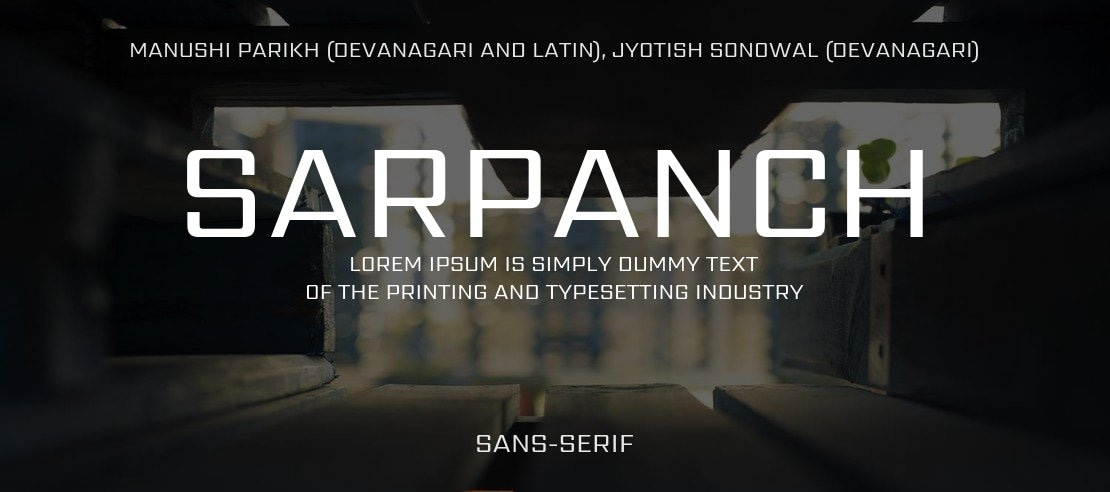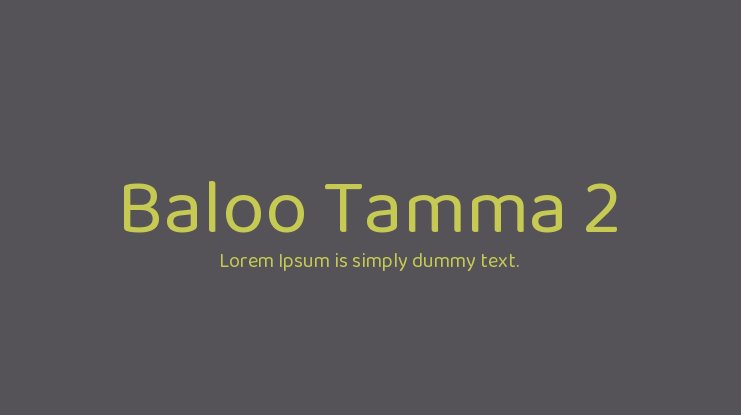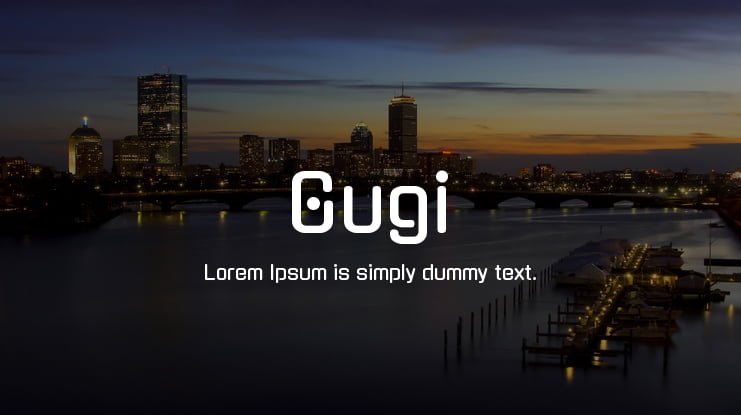
8 Best Free Google Fonts for Your Logo Design (2024)
Discover the 8 best free Google Fonts for logo design in 2024.
It is vital to select an appropriate font in order to create a unique and quality logo. It is always a challenging task for a designer or small business owner to come up with a logo that reflects a brand altogether, more so with Google Fonts where one can access thousands of high-quality free typefaces. In this guideline, we will present the 8 most reasonable free Google Fonts for logo design that will help improve your brand’s visibility.
What is Google Fonts?
Google Fonts is a free, open-source library of fonts that provides designers and developers with a wide variety of typefaces to use across websites, applications, and graphic projects like logo design.
Since it was launched in 2010, it has helped many designers find and incorporate different styles of fonts such as serif, sans serif and display. Google fonts is a great asset when developing a logo as it provides each client with different fonts for different styles of brands.
Advantages of using Google Fonts on your Logo Design
Design Your Own Logo with Free Google Fonts can enhance the visual appeal and functionality of your brand's identity. Here are some key advantages:
- Free and Commercial-Use Friendly: All fonts in the Google Fonts library are free of charge, even for commercial use. This means you can come up with professional logos without worrying about licensing costs. That's why it is more affordable for small businesses, start up companies or even a freelance designer opt to use Google fonts.
- Wide Range of Font Styles: There’s an enormous selection of type matter at Google Fonts, from sans-serifs to bold and outlandish display fonts. Whether it is a sleek modern logo or a cute artistic one, there’s always something suitable on Google Fonts.
- Easy to Download and Implement: You may download their fonts right away to be used in design applications such as Adobe Illustrator, Figma, and even Sketch, thus making your logo design process faster.
Here are 8 Best Google Fonts for Your Logo Design
For those searching for various logo design options, here are 8 of the most appropriate Google Fonts. They are free and allow for the creation of a professional and distinct brand.
1. Work Sans
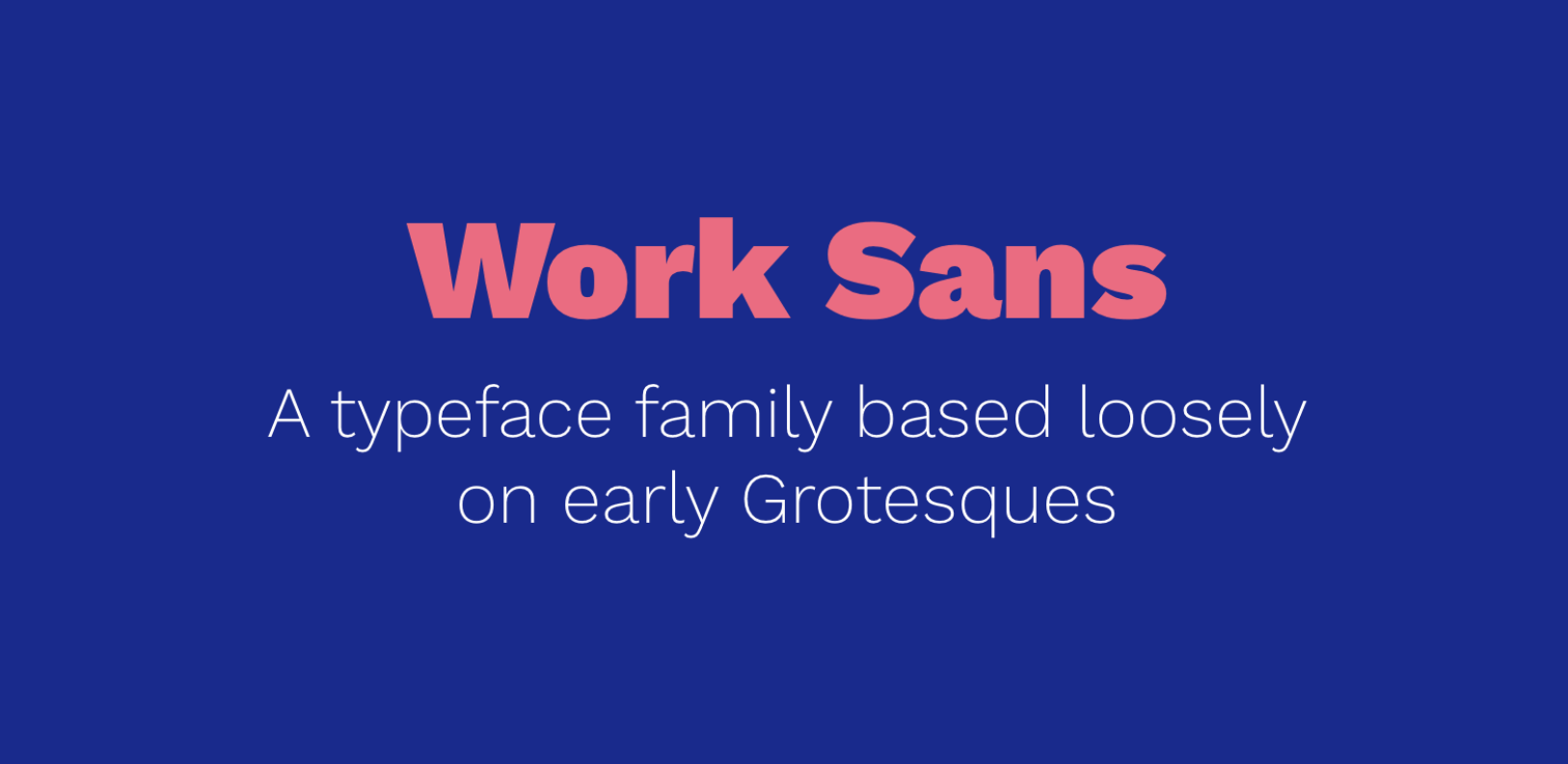
Work Sans is nothing more than a simple and modern looking Google font. Being legible makes it ideal for logo development in any industry. It is suitable for a wide range of uses, both in printed materials and digital because of its crisp and clean designs and geometric forms.
2. Baloo Tamma 2
Baloo Tamma 2 is a distinctive Google Font that exudes a playful and inviting vibe. The difference about this unique font is its round and strong letterforms in combination of soft rhythm. For those who are ready to design logos this one works well for the unpretentious and warm-hearted look that is often in demand. Residing in a large size, Baloo Tamma 2 reflects a wholesome look. However, in small size applications it also manages to be very good.
3. Roboto
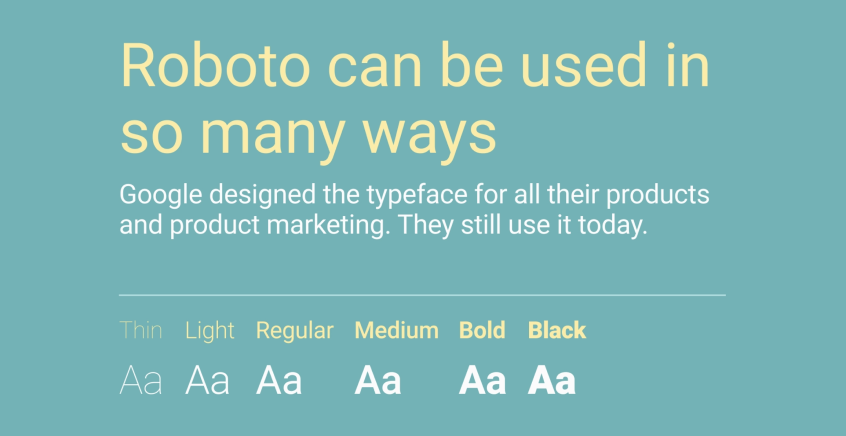
Roboto is very popular due to its asymmetrical nature. It is mainly composed of straight lines and curves and was developed for use in a variety of applications. Because of its versatility and legibility, Roboto is often employed in logo design.
4. Russo One
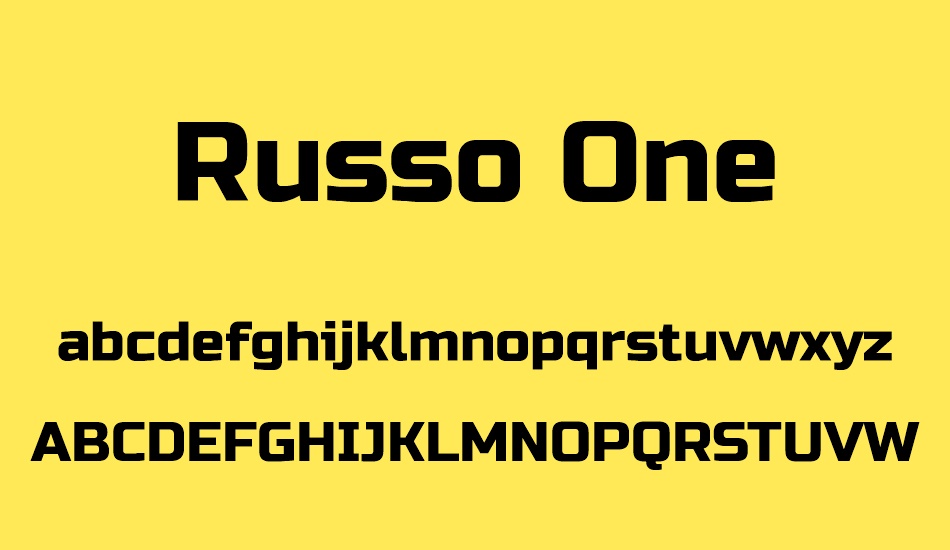
Russo One is a standout Google Font known for its strong and dynamic style. Its bold design imbues a sense of power and modernity, making it an excellent choice for geometric logos that aim to convey strength and innovation. Despite its commanding presence, Russo One maintains high legibility, ensuring your logo's message is always clear.
5. Coiny
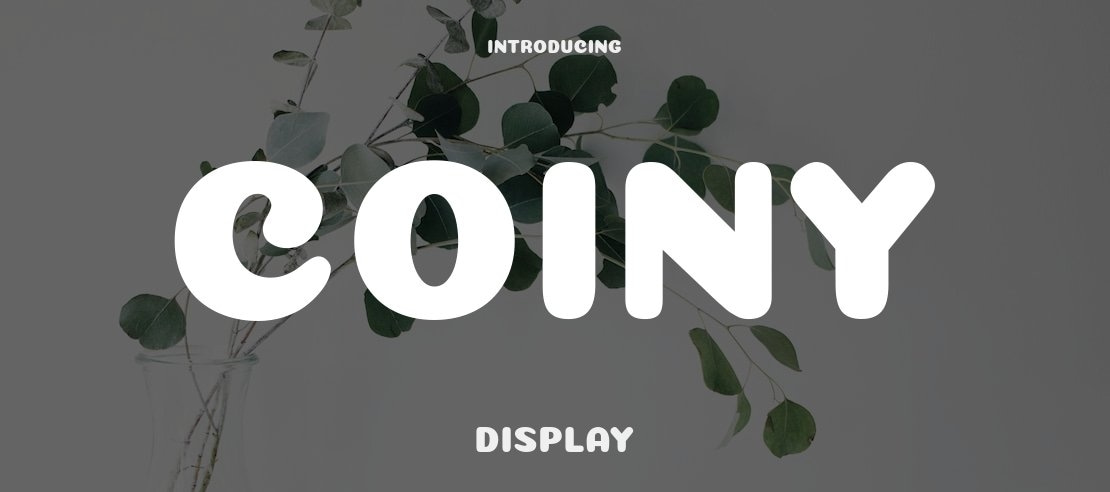
Coiny is a wacky display font that showcases a bold appearance, and it also best to remember that this font can be found on Google Fonts. Round and a little too bold affects the letters in this typeface, giving them a light and unprofessional charm, which is great for more cartoonish designs. The typeface embodies a handwritten style while maintaining a cartoon look to it which provides a certain type of attitude.
Coiny is ideal for kids logos, entertainment logos, and other creative industries. It is good for companies which need to create a friendly and or a cheerful look for the brand, however, Coiony is not often used in more serious and businesslike empires.
Gugi is an impressive display font which is even free to download in Google Fonts. Its shapes are somewhat familiar with Korean Hangul, yet are modern and even a little bit aggressive. It consists of features with straight lines as well as curves, managing to look both contemporary and classic at the same time.